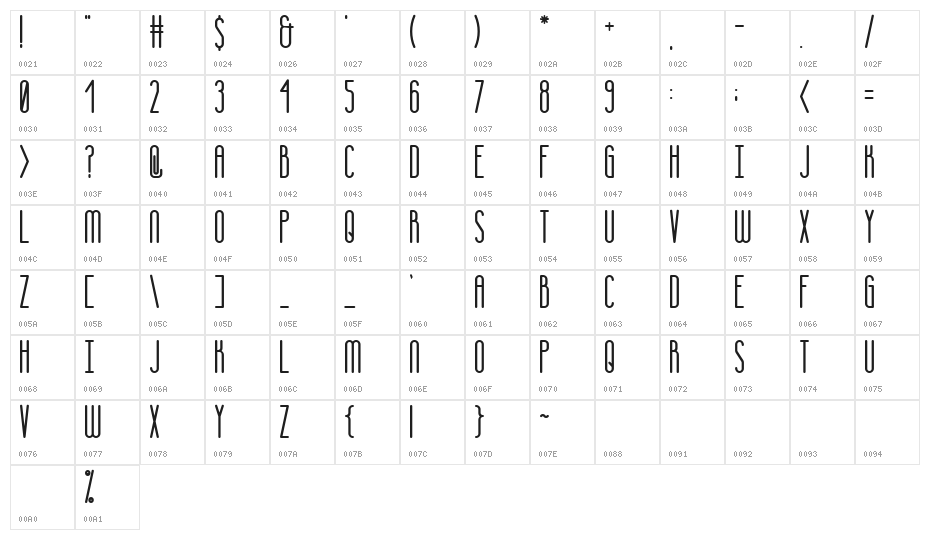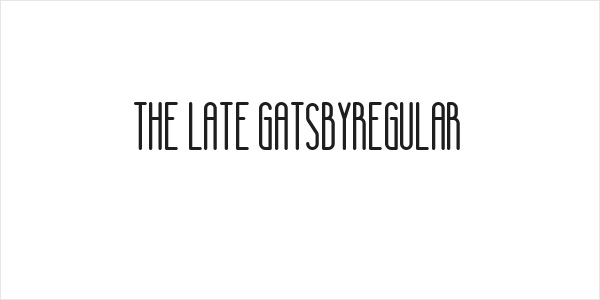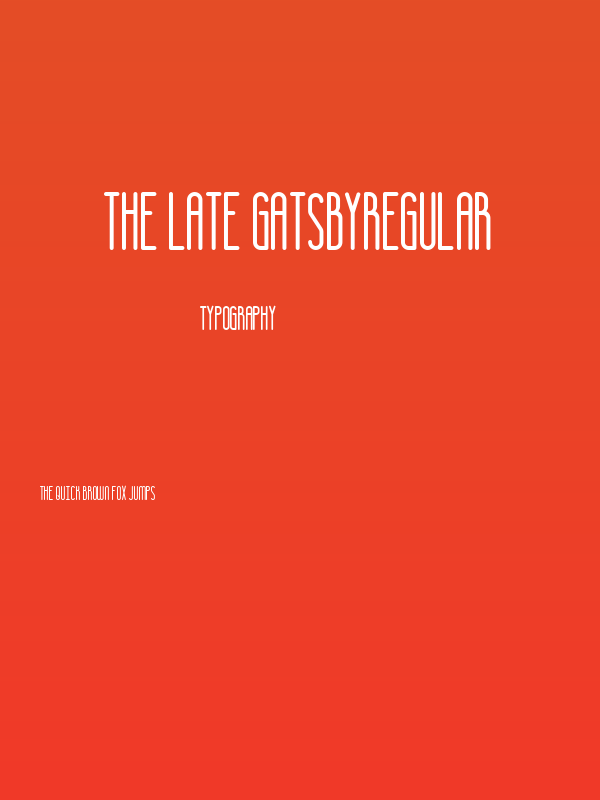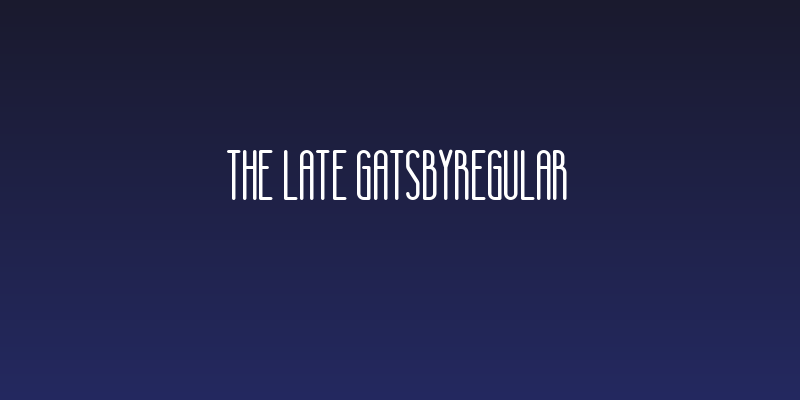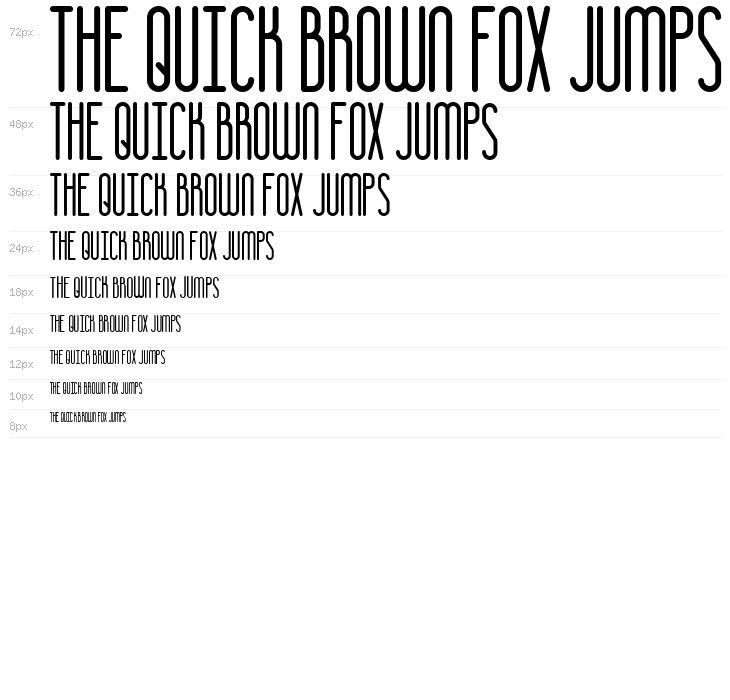
The Late GatsbyRegular Font
The Late GatsbyRegular Description
This font features a tall, narrow design with clean, straight lines and rounded edges, giving it a modern and sophisticated appearance. The uppercase and lowercase letters maintain a consistent height, contributing to its uniform look. The numerals and special characters are designed to match the overall aesthetic, with a sleek and elongated form. The font's structure is minimalistic yet impactful, making it suitable for various design applications. Its geometric style is both contemporary and timeless, offering versatility in its use.
| Proposed Projects | Ideal for branding, posters, headlines, and editorial design where a modern and sophisticated look is desired. |